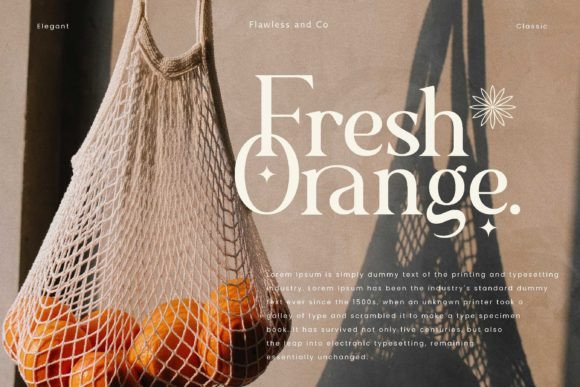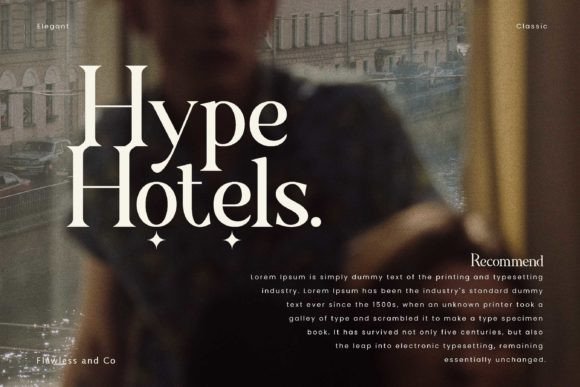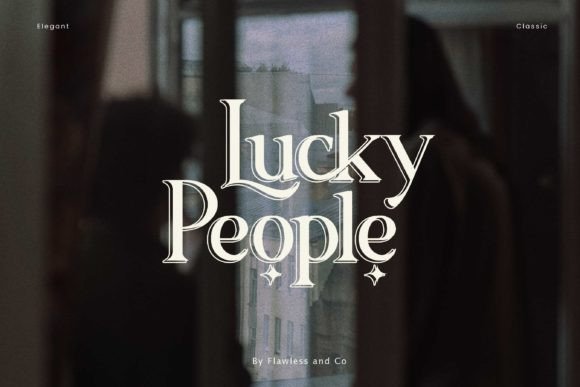
Introduction to Morven Font
As designers, we’ve all been there – staring at a blank canvas, trying to bring our creative vision to life. The perfect font can make all the difference, elevating our designs from bland to grand. And when it comes to the Morven Font, the excitement is palpable. This stunning modern serif font boasts a classic and elegant typeface that’s perfect for a wide range of design projects.
With its high-quality design and versatility, the Morven Font is an invaluable resource for designers. Whether you’re working on a branding campaign, creating an editorial layout, or simply looking for a beautiful font to add some flair to your design, Morven Font is sure to deliver. Plus, with a transparent background and free download available, it’s a must-have for any design project.
- Unique characteristics include a modern, minimalist aesthetic and a range of customizable options for creative expression.
Honest Review: Morven Font
As a designer, I’ve had the chance to experiment with various fonts for my creative projects. Morven Font is one of the latest additions to my design resource arsenal. Here’s what I think:
- ✨ High-quality design: Morven Font boasts a clean and elegant aesthetic that’s perfect for modern designs.
- ⚠️ Limited font styles: While Morven Font has a range of weights, I found the selection of font styles to be somewhat limited.
- ⚠️ Not ideal for body text: I found that Morven Font can be a bit too ornate for body text, making it more suitable for headings and titles.
Overall, I’m impressed with Morven Font’s high quality and versatility. While it may not be the perfect font for every project, it’s a valuable addition to my design resource library.
Common Use Cases for Morven Font
The Morven Font is ideal for a wide range of creative projects, including business cards, brochures, posters, and social media graphics. Its high-quality design and transparent background feature make it a versatile and essential design resource for designers of all levels.